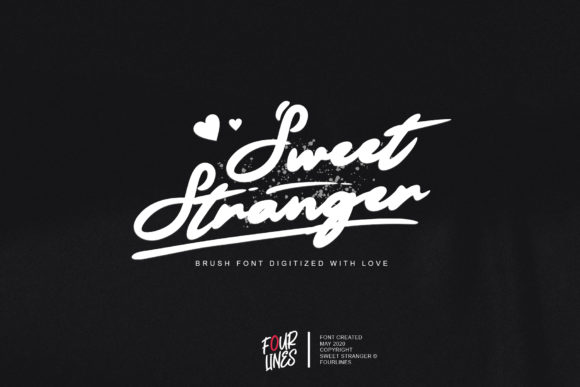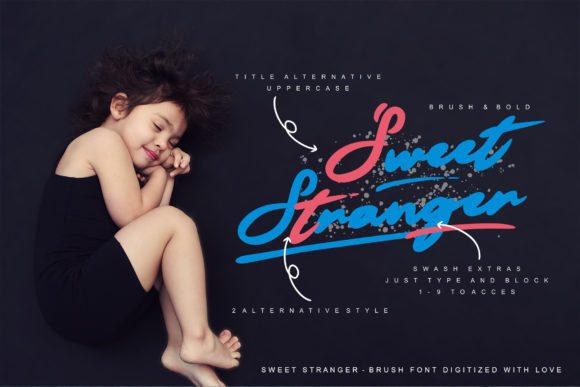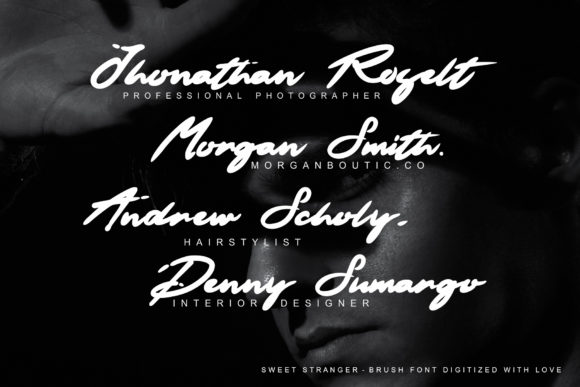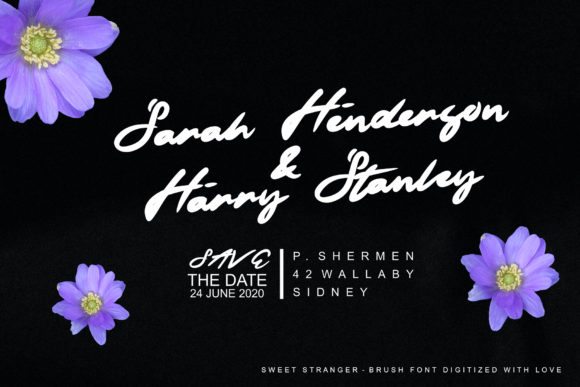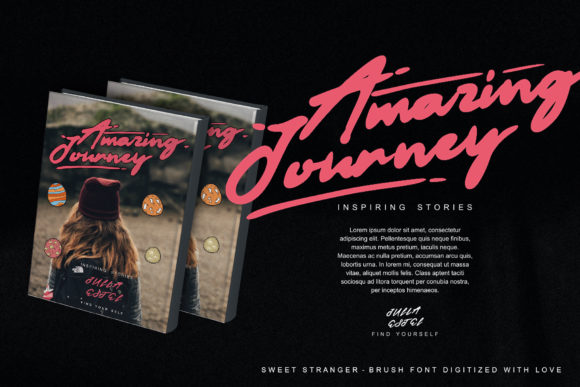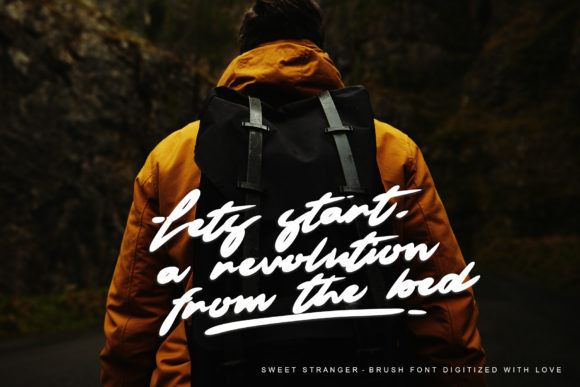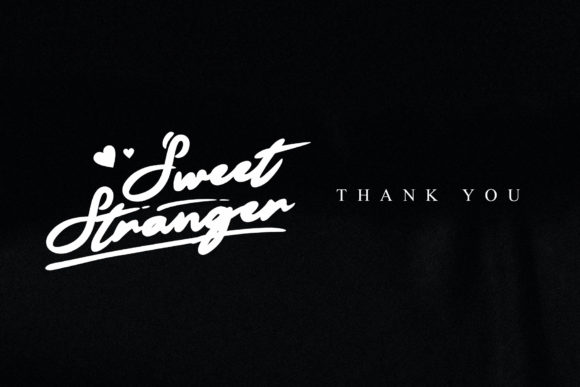
Sweet Stranger Font
About Sweet Stranger Font
Sweet Stranger is a lovely handwritten font designed with the help of an outstanding brush pen. Fall in love with its incredibly versatile style and use it to create gorgeous wedding invitations, beautiful stationary art, eye-catching social media posts, and much more!